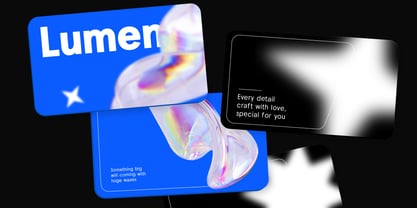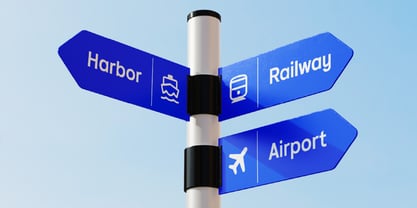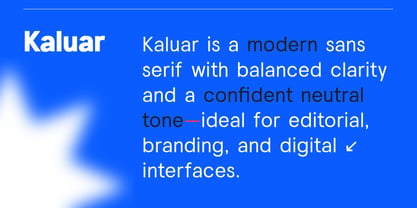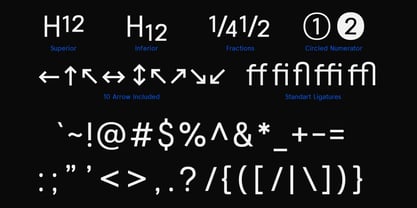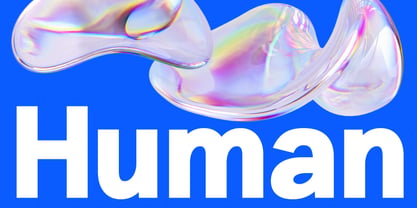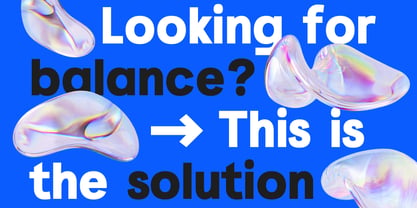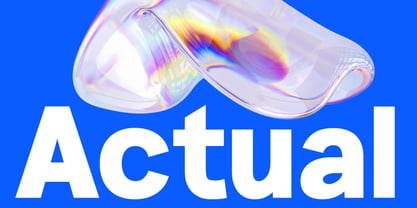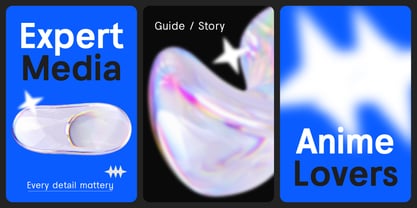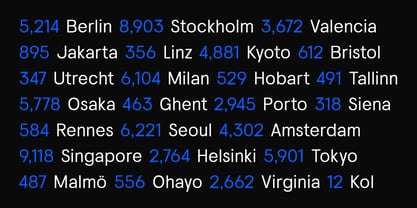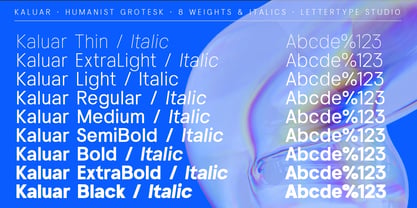
Kaluar
by Lettertype Studio
The Kaluar Font Family was designed by Diki Pradipta Tri Atmojo and published by Lettertype Studio. Kaluar contains 18 styles and family package options. More about this family
Kaluar is a modern sans-serif typeface designed for clarity, balance, and extended readability. Positioned between humanist warmth and grotesk precision, Kaluar offers a neutral yet confident typographic voice suitable for editorial content, branding systems, and contemporary digital interfaces. Built as a text-first family, Kaluar maintains consistent rhythm, stable proportions, and comfortable spacing across a wide range of weights. Its restrained construction ensures reliable performance for long-form text, UI layouts, and professional publishing environments.